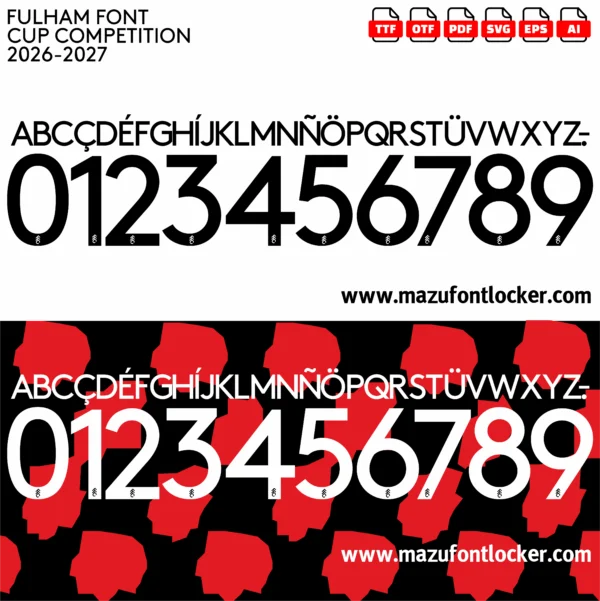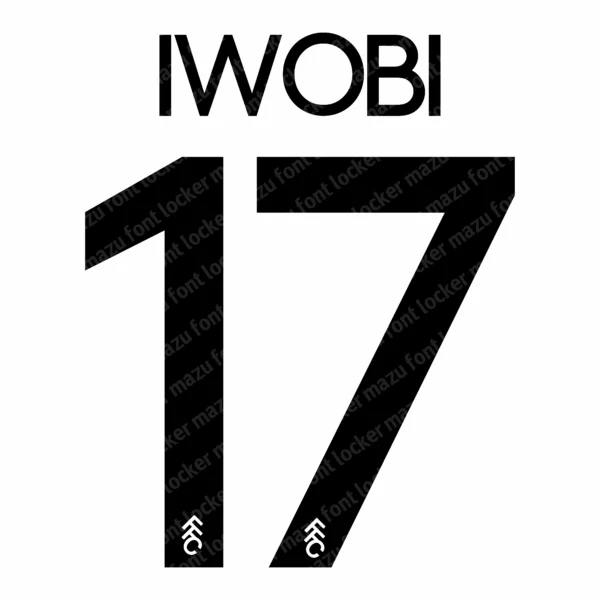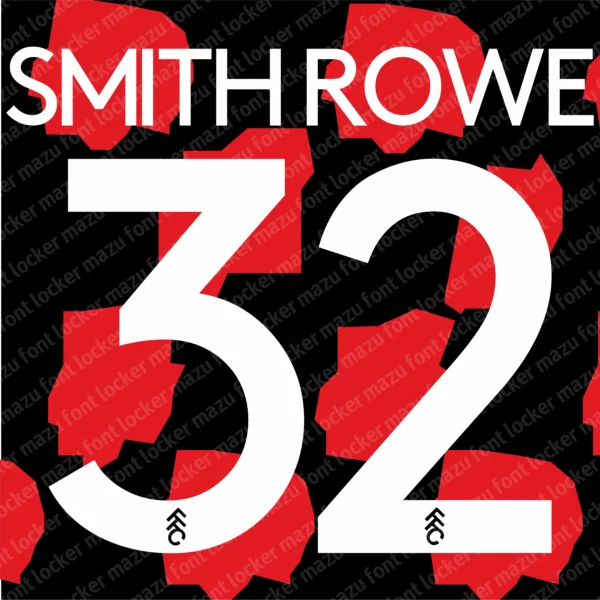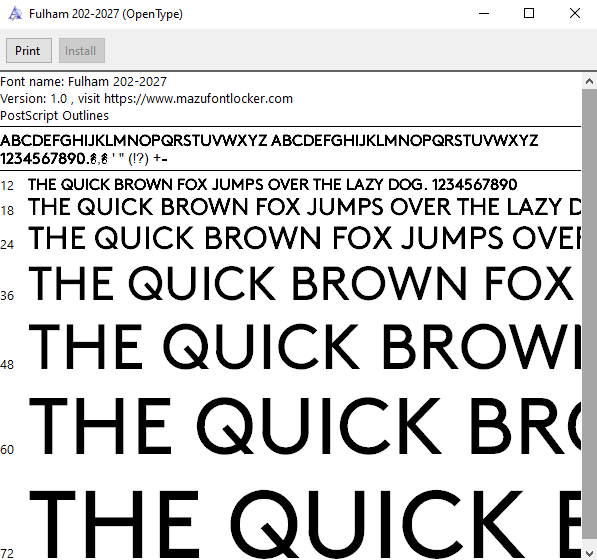
Fulham FC 2026-2027 Font Vector – Stunning Black & White Typeface
The Fulham FC 2026-2027 Font Vector is a premium typeface that accurately recreates the distinctive match lettering associated with Fulham FC for the 2026-2027 football season. This high-quality vector font kit captures the bold, clean, and instantly recognizable typography that perfectly complements the club’s iconic black and white identity.
Designed for professional designers, football enthusiasts, jersey collectors, and passionate Fulham supporters, the Fulham FC 2026-2027 Font Vector delivers exceptional authenticity for creating realistic jersey mockups, football merchandise, social media graphics, match posters, squad designs, and custom fan artwork. Every character has been carefully recreated to reflect the powerful and precise visual style of one of England’s most distinctive and passionate football clubs.
Why Choose Fulham FC 2026-2027 Font Vector
This font stands out thanks to its precise vector construction and authentic club-inspired styling. Every letter and numeral has been meticulously recreated to match the distinctive football lettering aesthetic associated with Fulham FC during the 2026-2027 season and its domestic campaigns.
Whether you’re producing professional football kit templates, custom jersey concepts, or eye-catching football content, the Fulham FC 2026-2027 Font Vector delivers a genuine match-ready appearance inspired by the identity of The Cottagers.
The lettering featured in the Fulham FC 2026-2027 Font Vector combines clean geometric lines with bold modern proportions. The result is a premium and highly readable typeface that reflects Fulham FC’s proud football heritage, iconic black and white colors, London identity, and passionate global fanbase.
- Complete uppercase A–Z alphabet and numbers 0–9 in authentic Fulham FC 2026-2027 inspired style
- Special Fulham FC badge glyph – Press the “:” (Colon) key to insert the club crest